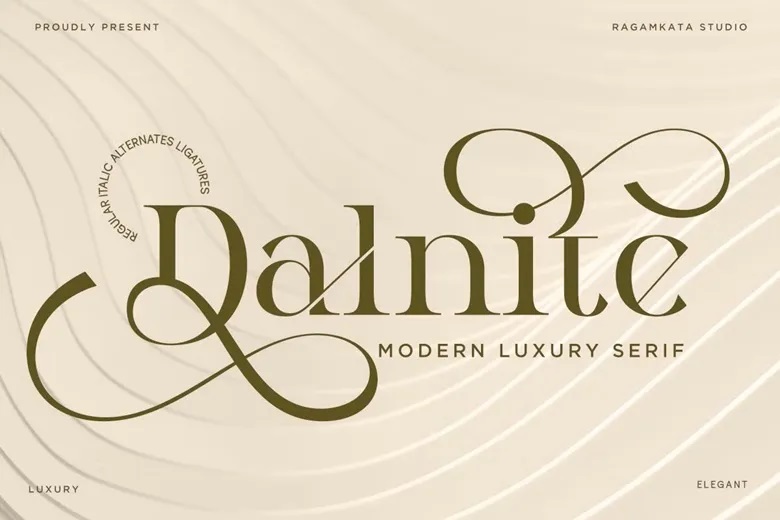
Dalnite Font
Dalnite is a contemporary luxury serif which is full of old fashioned finesse and editorial quality. It has classy ligatures, elegant alternatives, and contrasts to uplift your branding, fashion, or weddings projects. Dalnite is the perfect choice when it comes to high-end logos, magazines, invitations, and packaging as it adds a graceful modern touch to any visual identity. Its regular, italic, and alternate types are available to allow full creativity.
Dalnite Serif Font